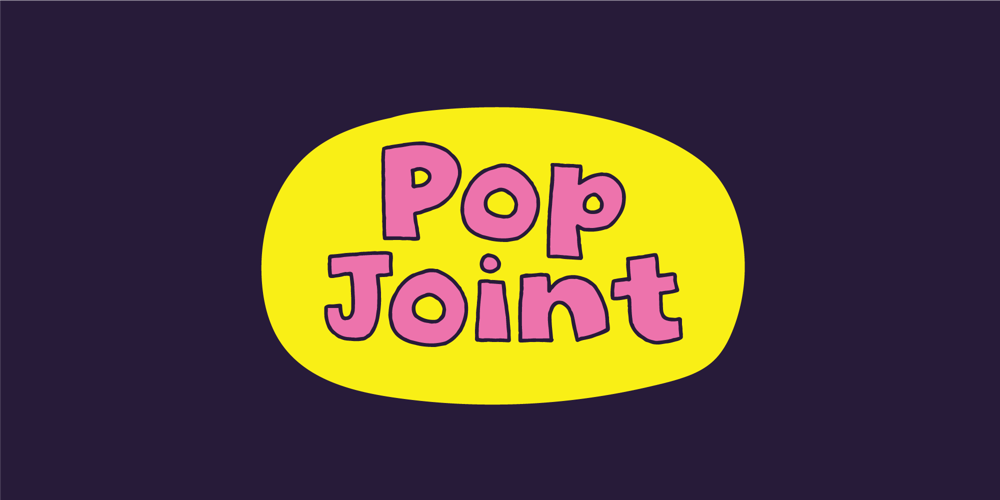
Pop Joint
Pop Joint font
Pop Joint Font Family was designed by Jakob Fischer and published by PizzaDude.dk. Pop Joint contains 3 styles and family package options. Pop Joint is a classic, yet slightly rough, comic type. Super friendly when it comes to anything that needs an organic and handmade look.Comes in 3 versions: Regular, Outline and Inside – mix and match for nice results!